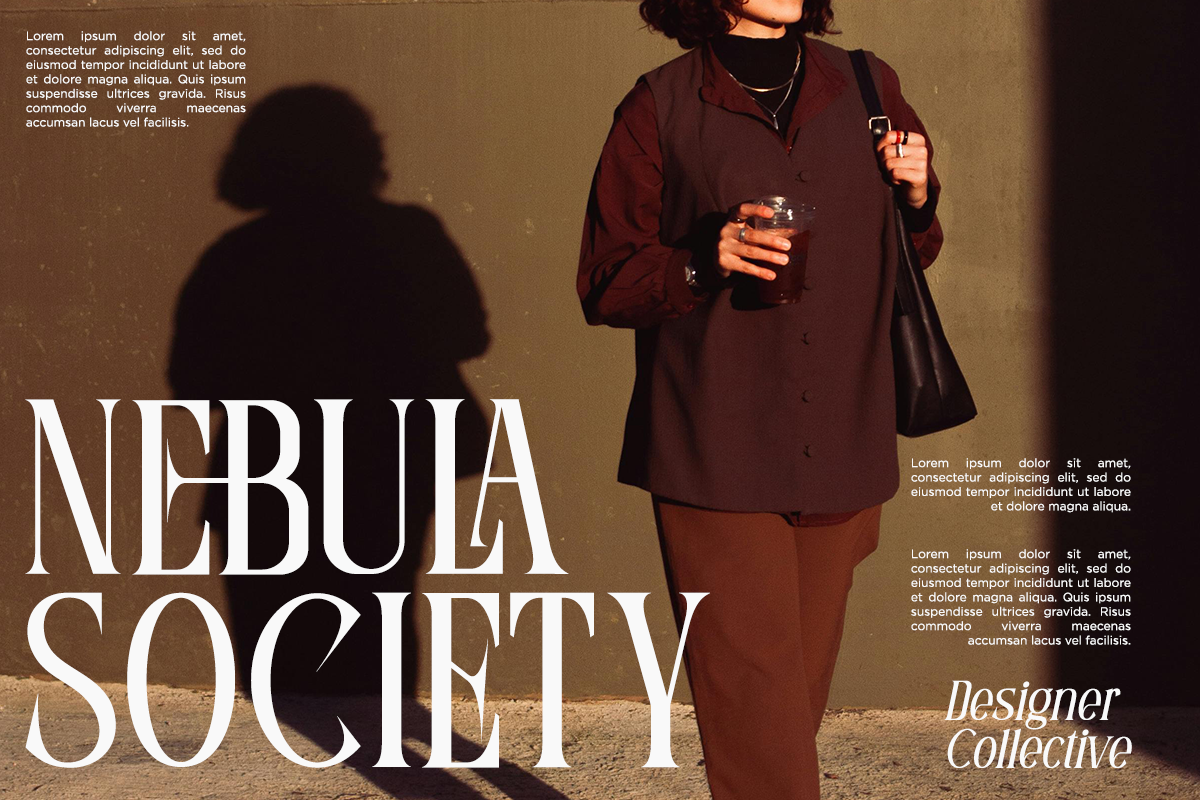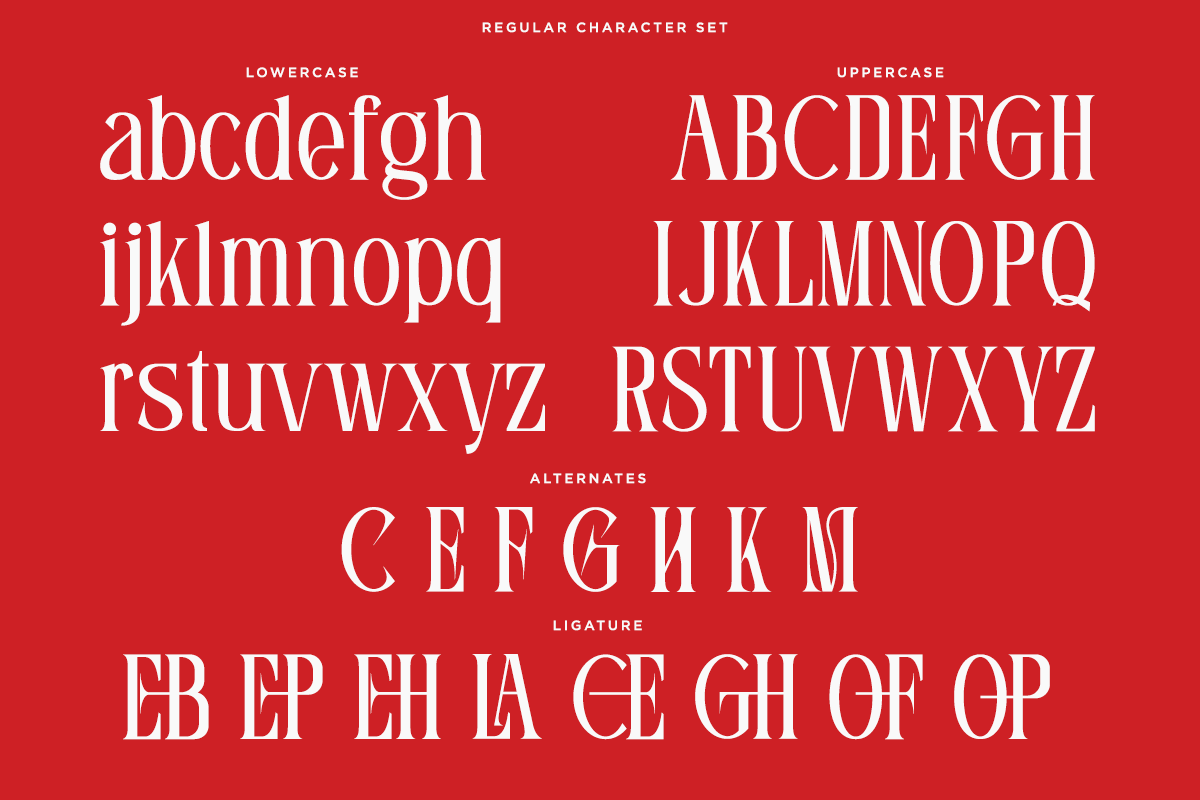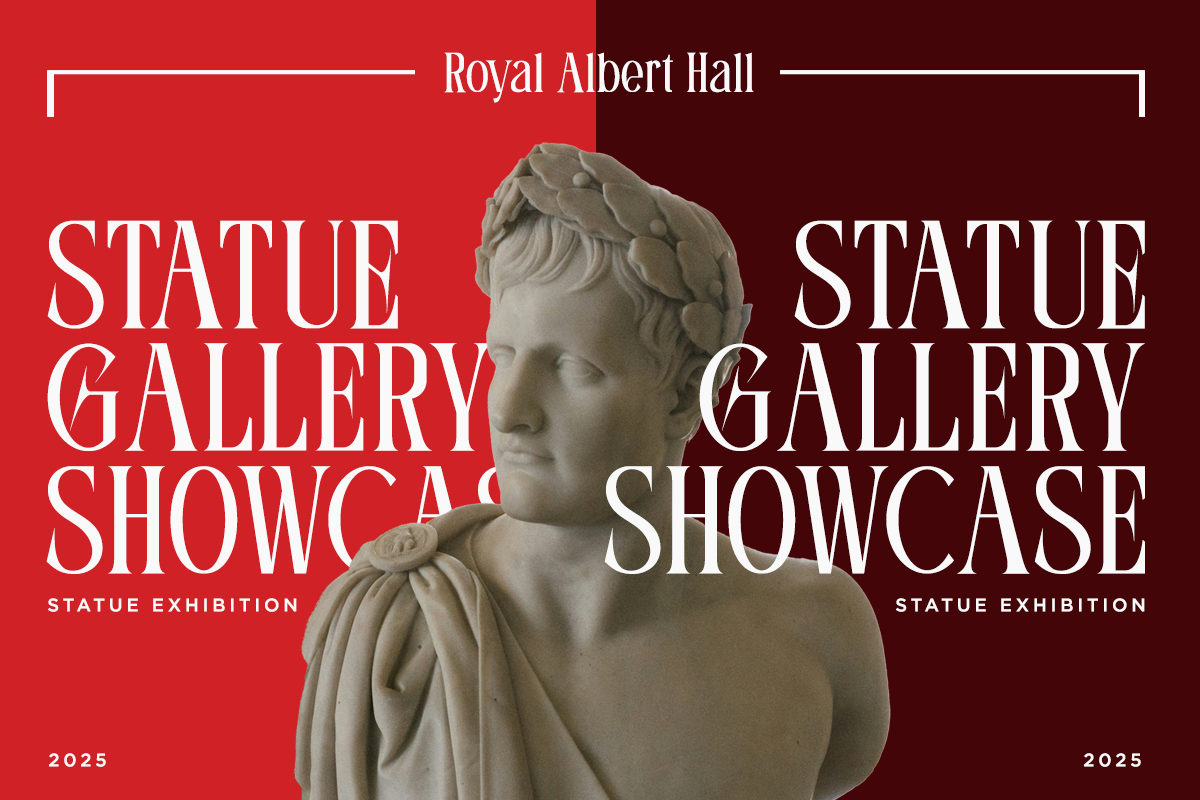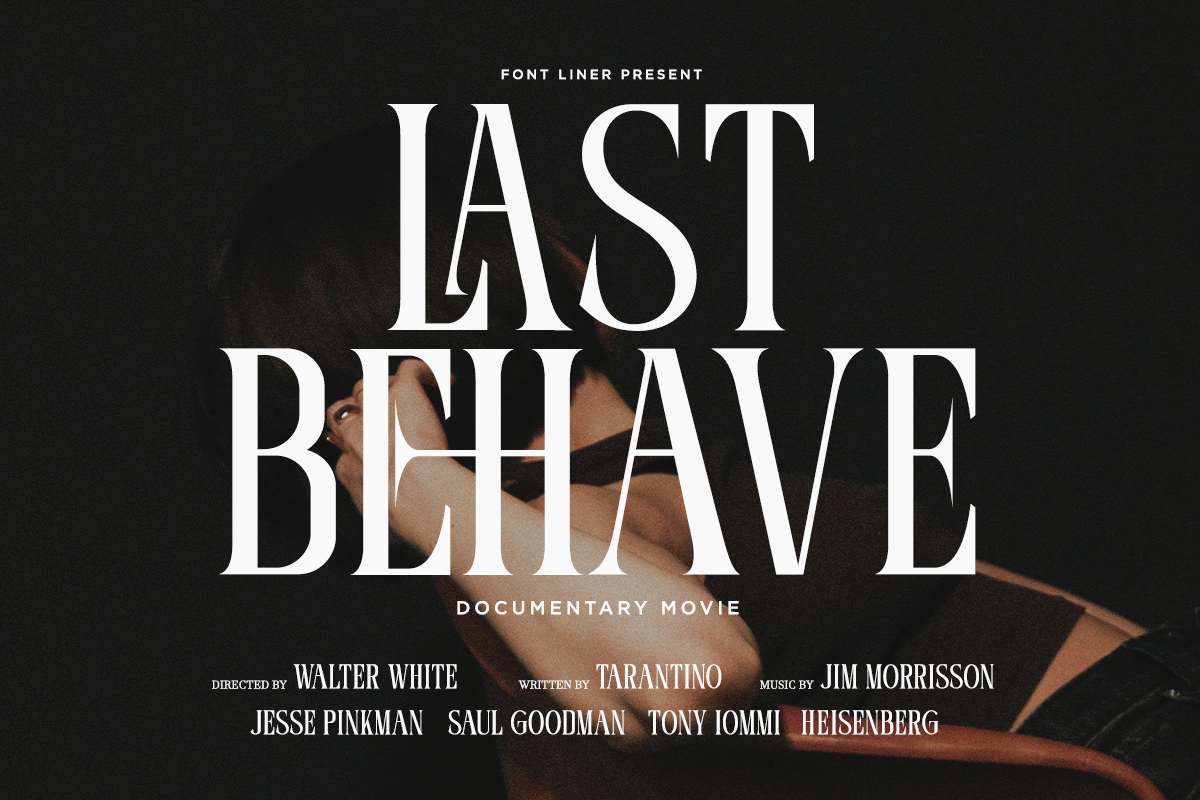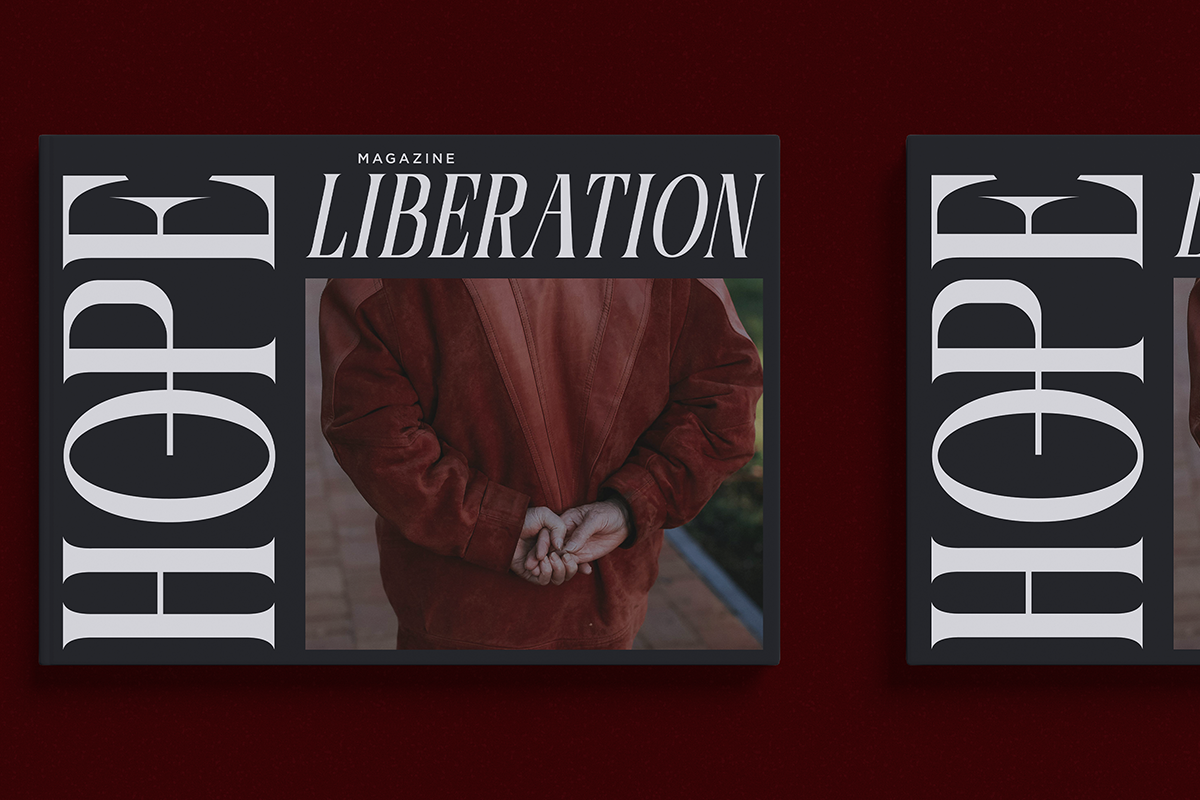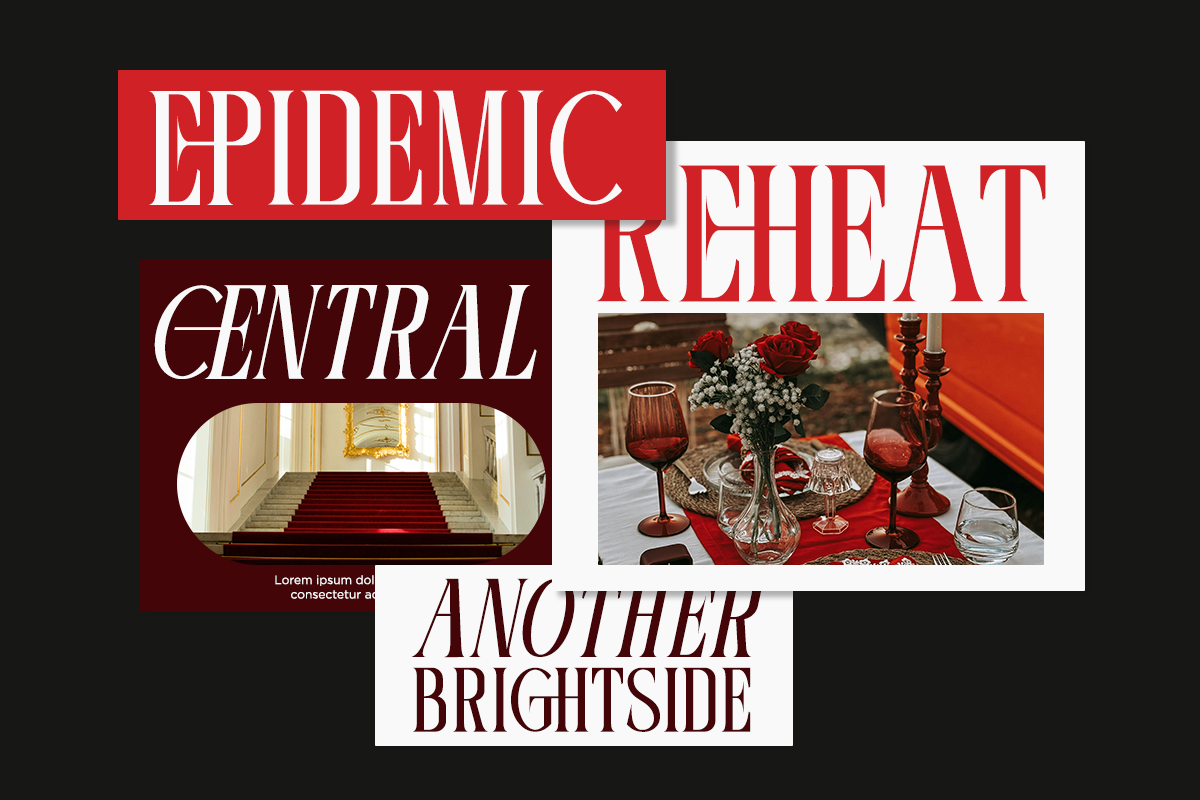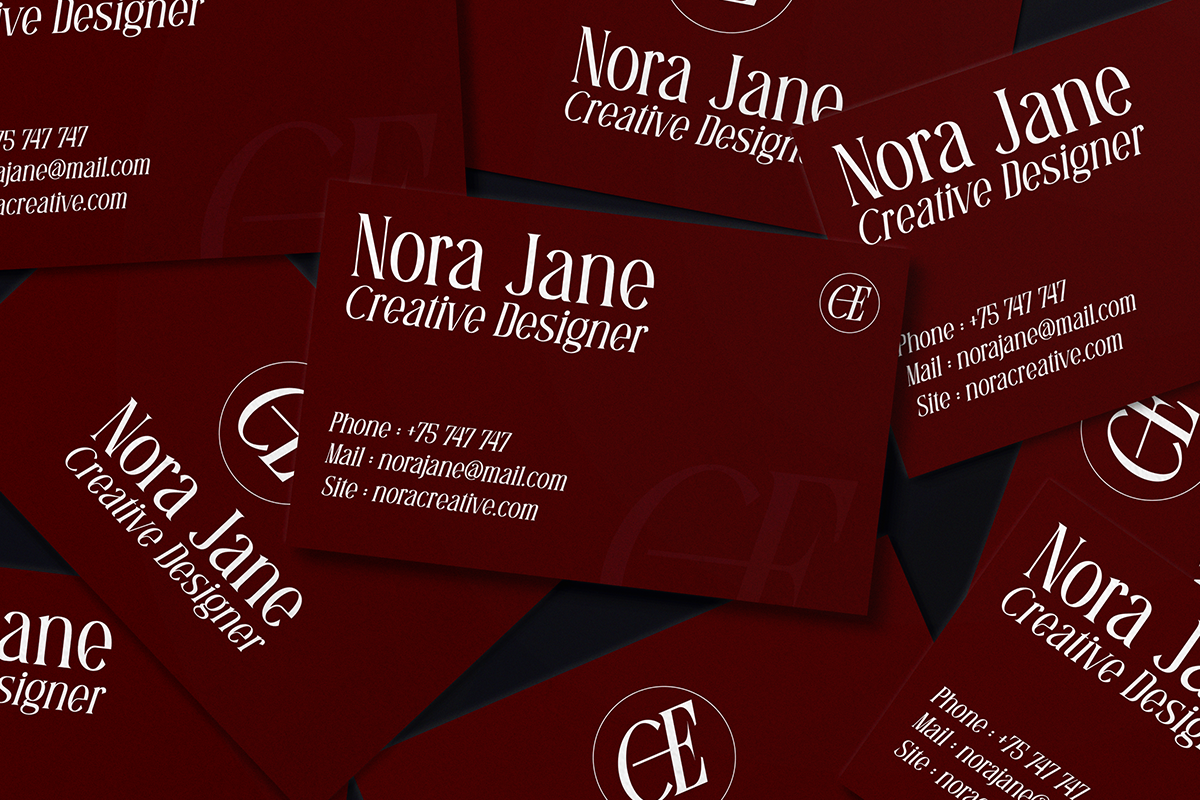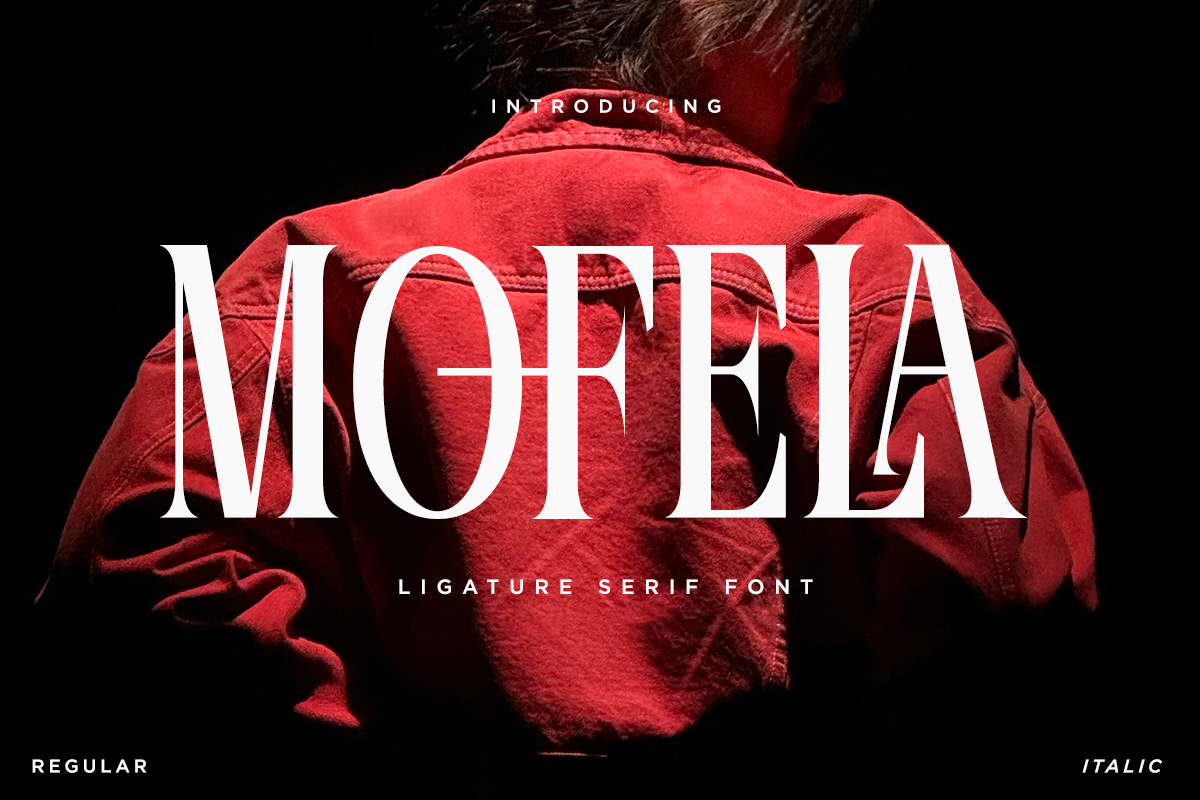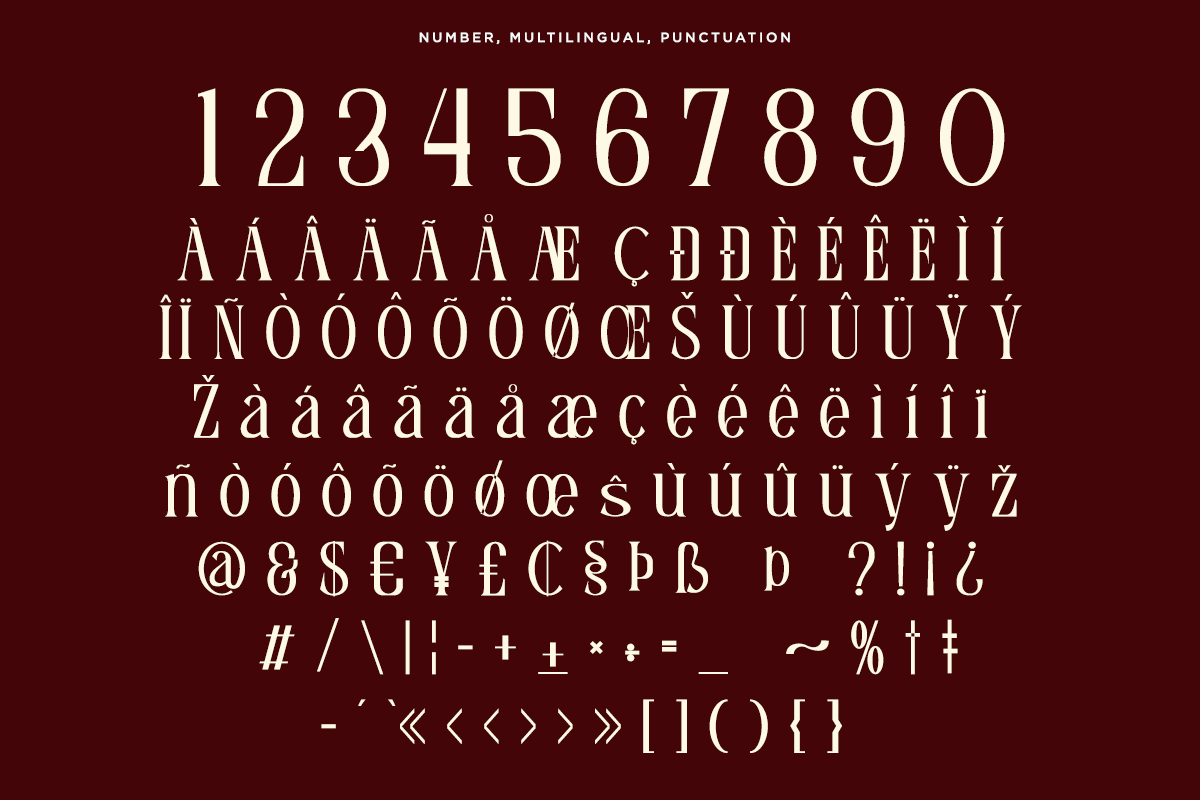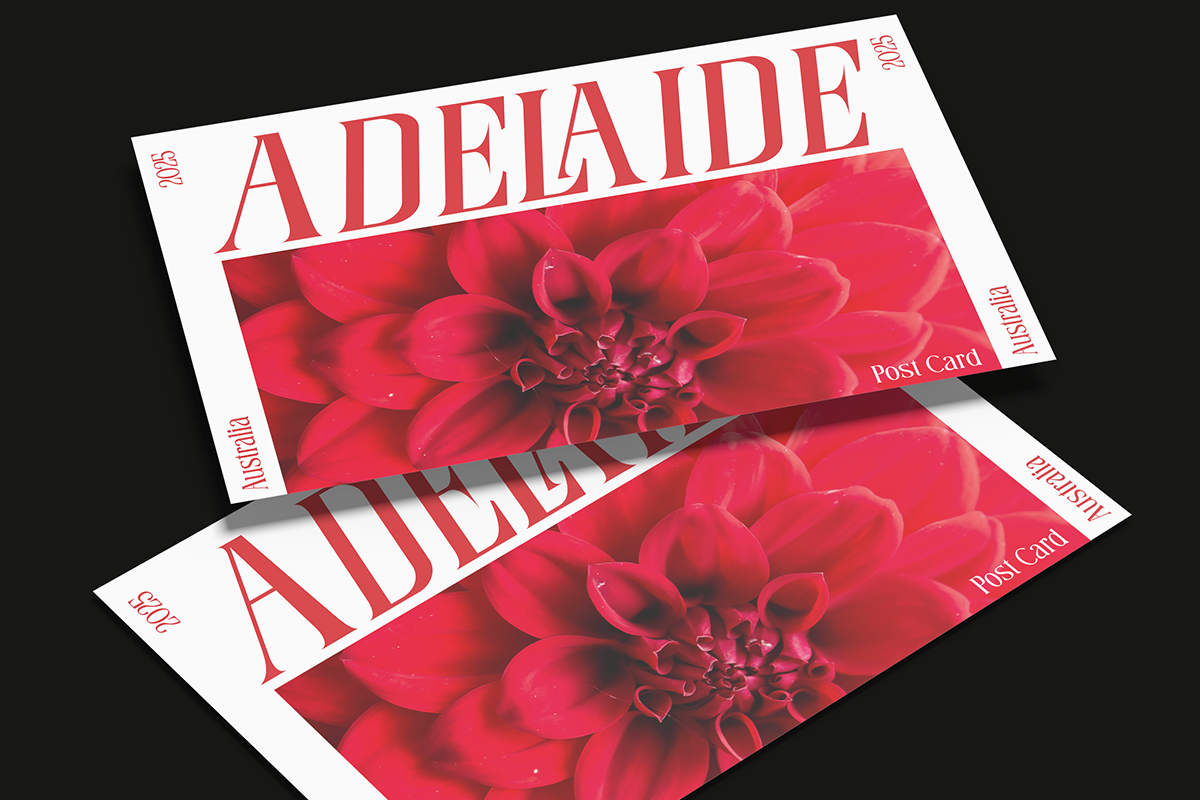
Mofela - Ligature Serif Font
Introducing Mofela is a modern ligature serif font condensed style and with italic version. This font is ideal for headlines, billboards, magazines, websites, titles, posters, branding, and logos. With an abundance of ligatures, alternates, and other features to choose from, you can ensure your project stands out from the rest.
- Stylistic Ligatures